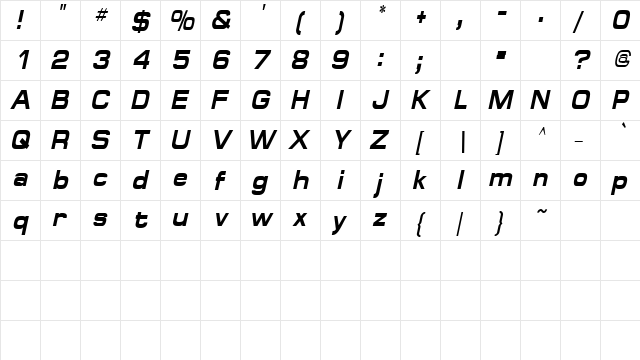
SpaceOutBoldCondensed Italic
Design Context for SpaceOutBoldCondensed Typeface
SpaceOutBoldCondensed is a composed and adaptable typeface that performs quietly and consistently across a wide range of design contexts. The slanted form adds forward momentum and visual energy. Its bold stroke weight gives it real presence on the page. Its narrow stance lets it pack a punch even in space-constrained designs.
Pro Tip: Try SpaceOutBoldCondensed for annotation and caption copy alongside an upright companion — the contrast in angle creates a dynamic but ordered typographic system.